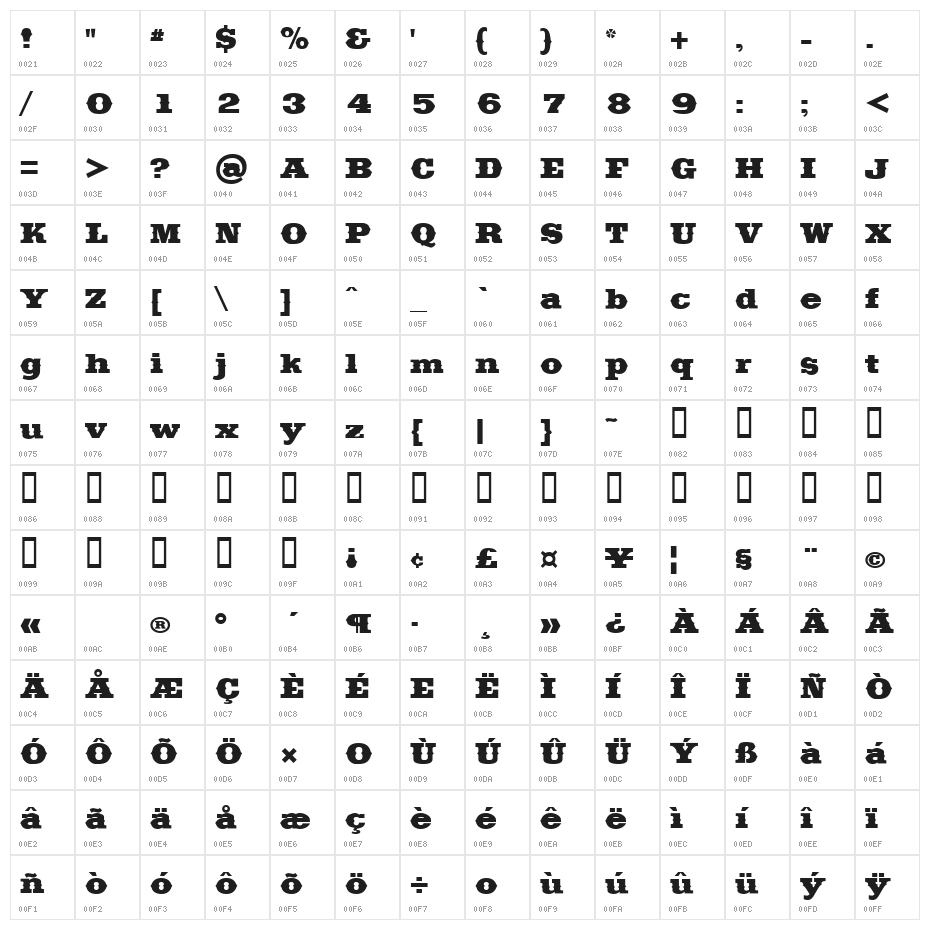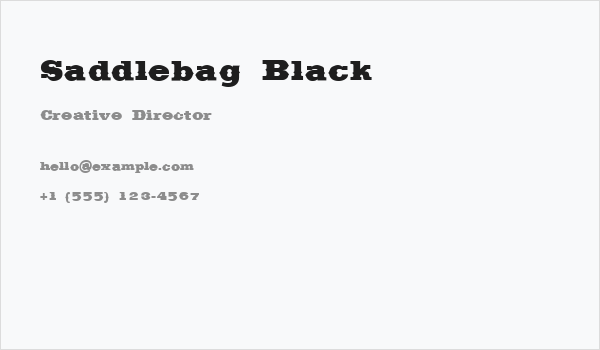
Saddlebag Black Font
Saddlebag Black Description
This font features a bold and robust design, characterized by thick, block-like serifs and a strong presence. The uppercase letters are particularly striking, with a commanding appearance that demands attention. The lowercase letters maintain the same boldness, ensuring consistency across text. Numbers and special characters are equally bold, making them stand out prominently. The overall style is reminiscent of vintage Western typography, with a decorative flair that adds character and uniqueness to any design.
Overall StyleVintage
Proposed ProjectsIdeal for Western-themed posters, vintage branding, and eye-catching headlines.